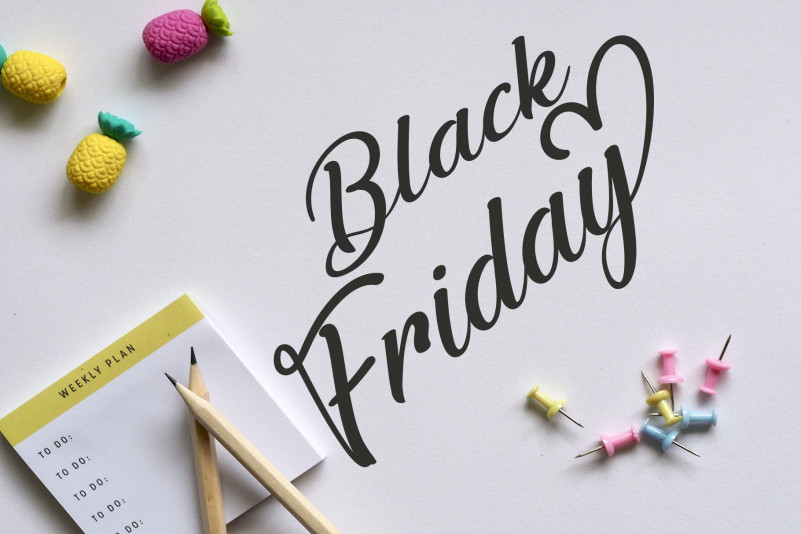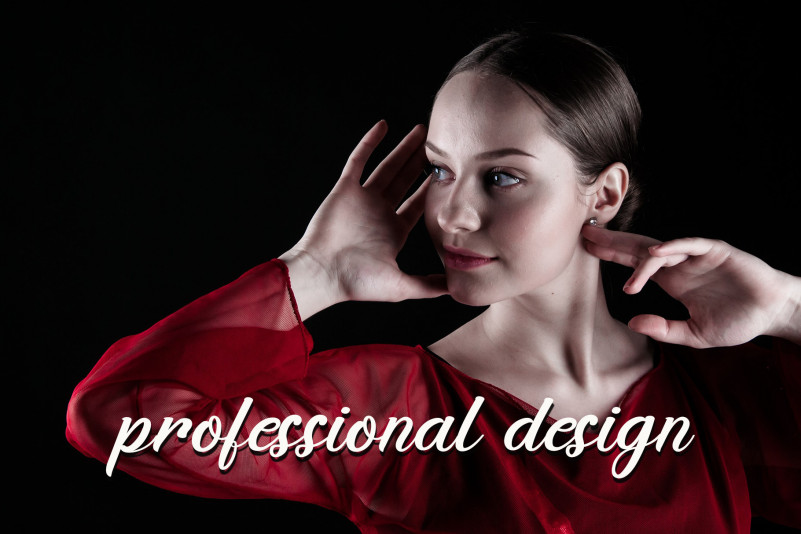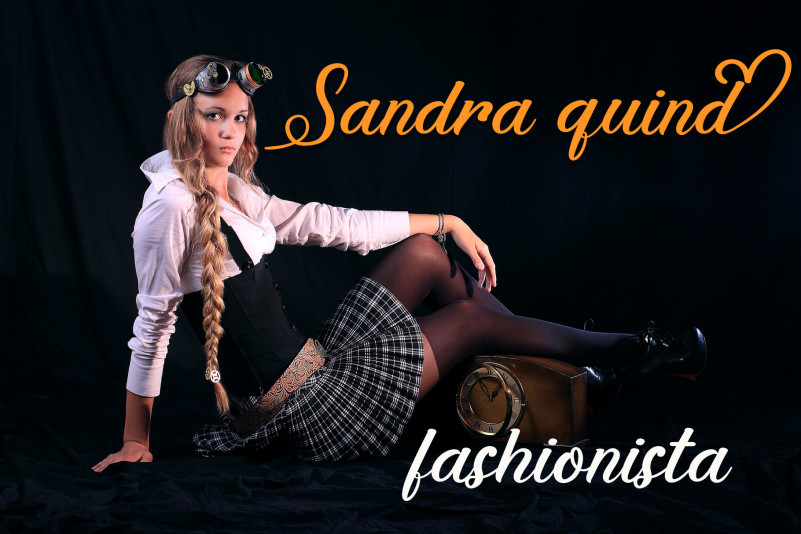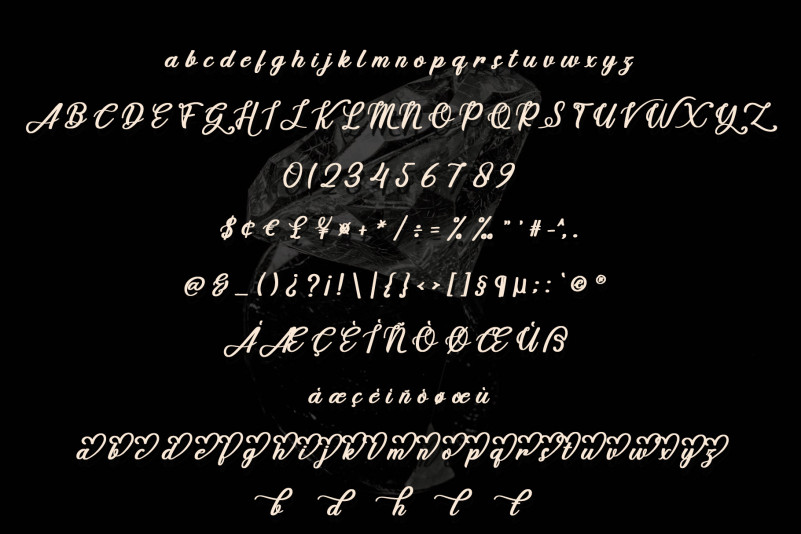
Handmade Font
Handmade Calligraphy Font
This is a romantic and sweet calligraphy typeface with characters that dance along the baseline. It will add a luxury spark to any design project that you wish to create! This font is PUA encoded which means you can access all of the amazing glyphs and ligatures with ease!